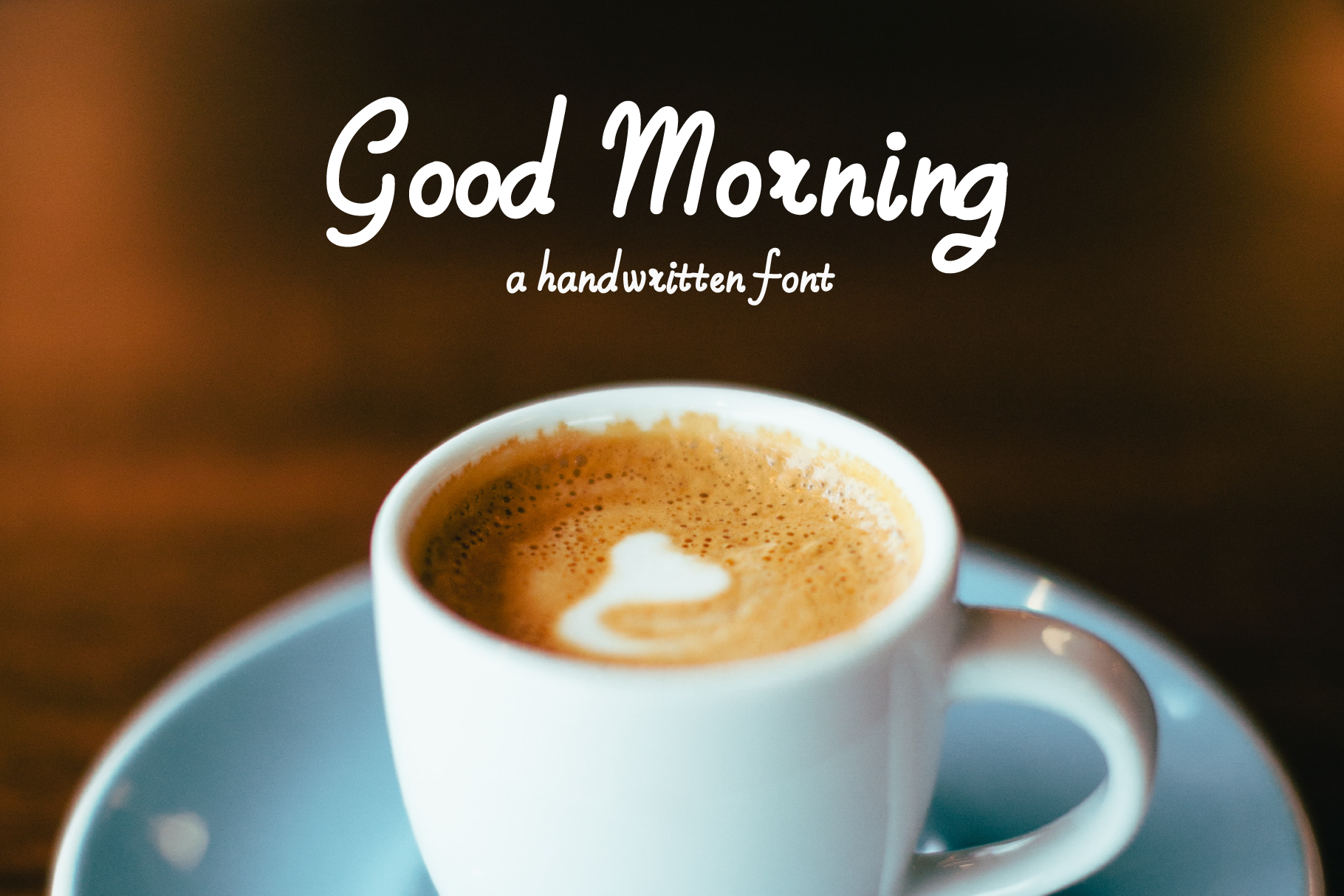
Good Morning Handwritten Font
Good Morning is a casual handwritten font. Includes a full set of upper and lower case letters, numerals, and punctuation